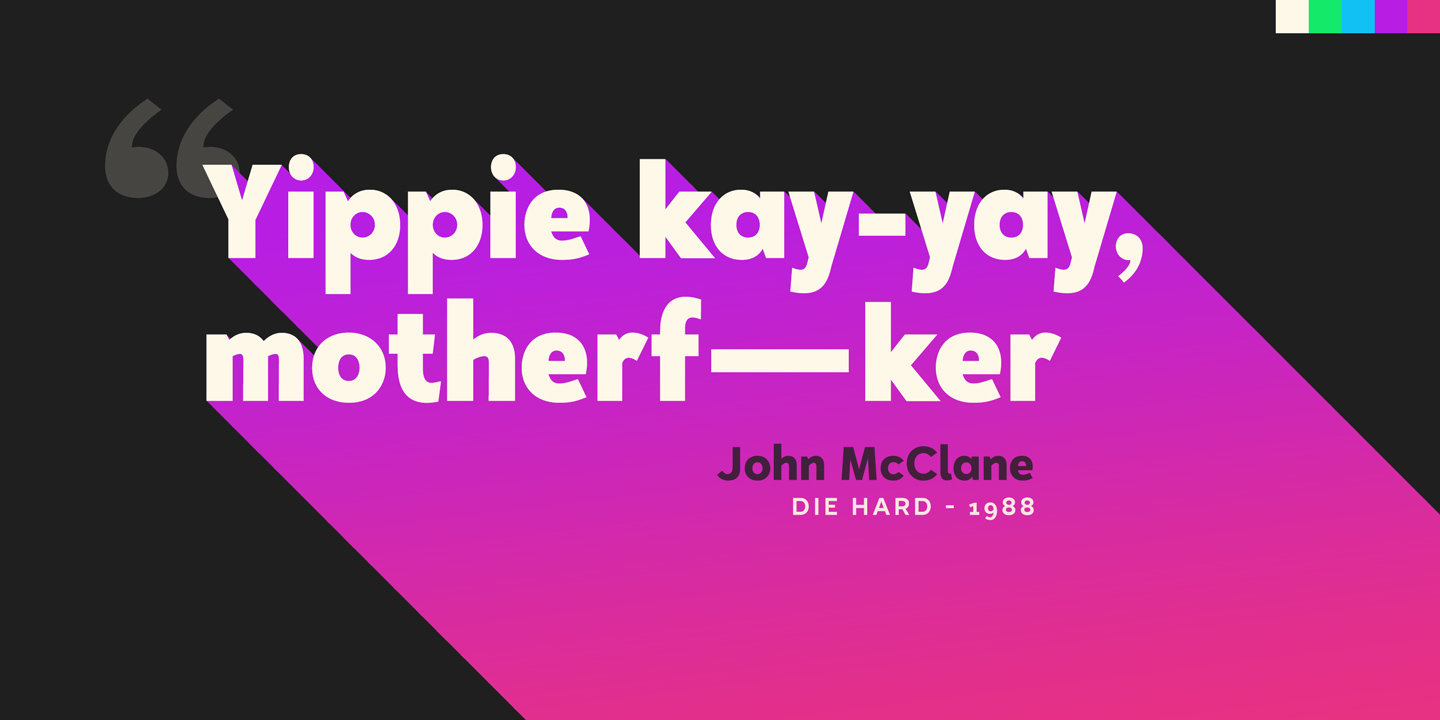
Halcyon Mono Font Family
Halcyon is a geometric typeface made up of 16 fonts over 8 weights. Each weight contains a vertical style with a corresponding italic letter. Halcyon's design builds on the foundations of classic typefaces such as Futura, Gill Sans and ITC Avant Garde, by blending their geometric structure with properties to create a more modern font style.
The versatility of its properties makes Halcyon a reliable choice for any design decision. With a variety of weights and a wide range of Opentype features, Halcyon can be adjusted to fit your designs.
Halcyon is a multilingual font set with hundreds of accented characters and allows characters to be customizable through diacritic combinations. All European languages, along with many others in the Latin alphabet.